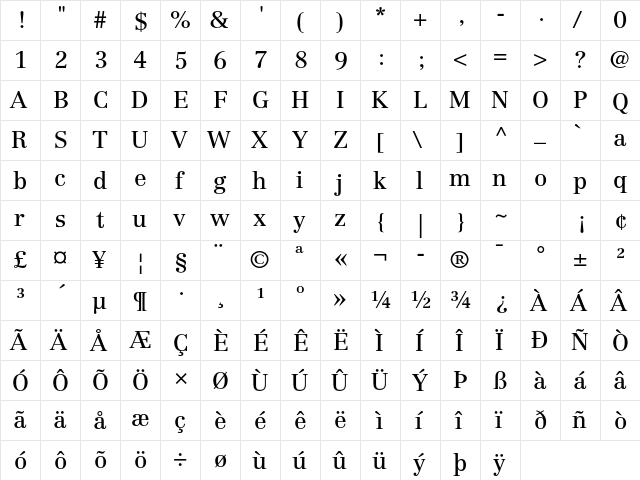
Centennial LT Std 55 Roman Font Preview
Centennial LT Std 55 Roman
Centennial LT Std 55 Roman Font Details
| Style | 55 Roman |
| Designer | Adrian Frutiger |
Design Context for Centennial LT Std Typeface
Centennial LT Std offers clean, dependable letterforms without strong stylistic allegiance, making it a practical choice for designers who need flexibility. The delicate stroke weight brings airiness and refinement to layouts.